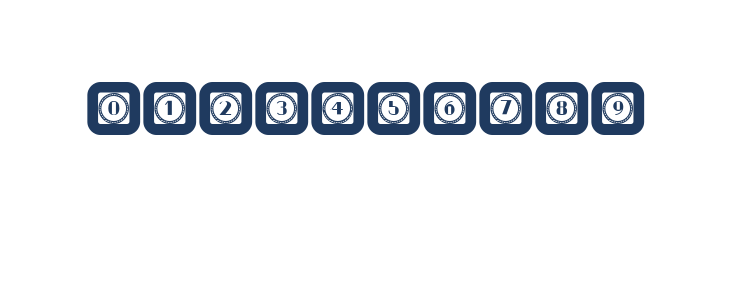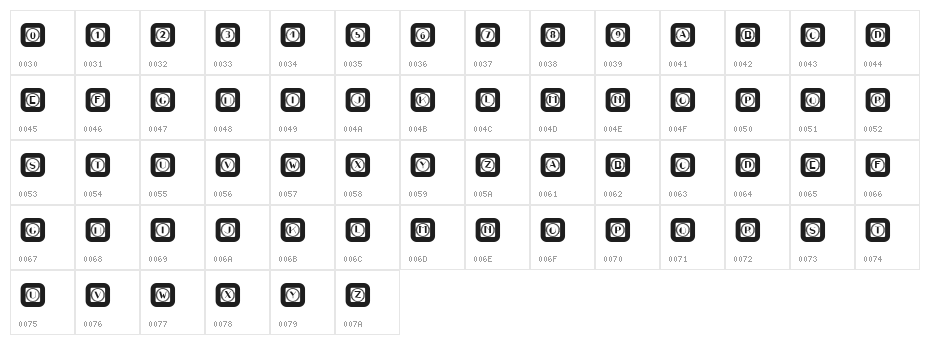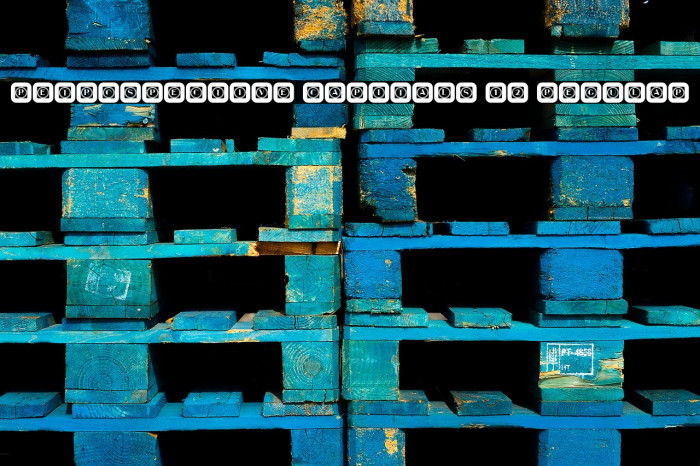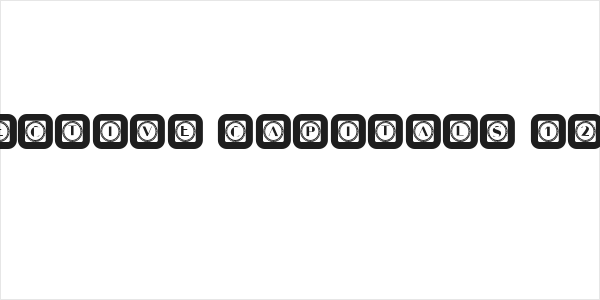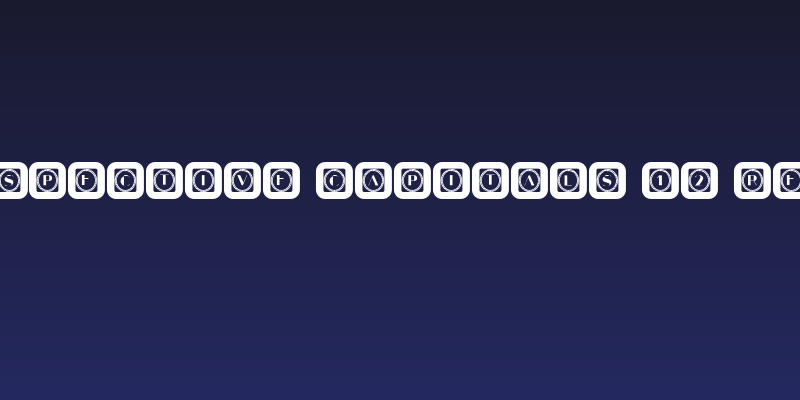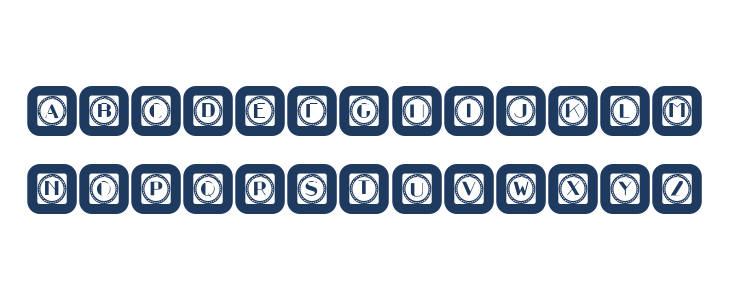
Retrospective Capitals 12 Regular Font
Retrospective Capitals 12 Regular Description
This font features a distinctive retro style, reminiscent of typewriter keys, with each character enclosed in a rounded square. The letters are bold and uppercase, with a uniform thickness that gives them a strong presence. The numbers and special characters follow the same design, maintaining consistency across the set. The enclosed design adds a unique touch, making it stand out for creative projects. The font's geometric and structured appearance makes it ideal for vintage-themed designs, offering a nostalgic feel while remaining clear and legible.
| Proposed Projects | Ideal for vintage posters, retro-themed branding, and creative digital designs. |